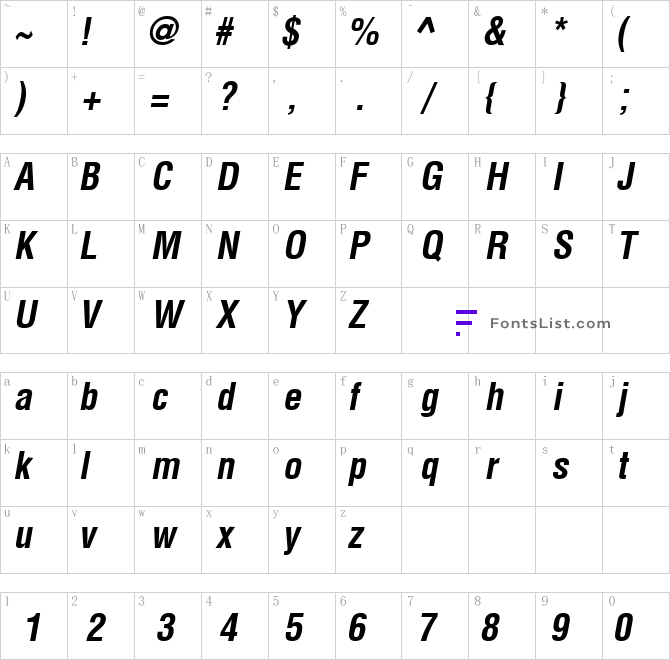
- Font Name:AGLettericaCondensed
AGLettericaCondensed-BoldOblique.ttf is a very beautiful artistic font, AGLettericaCondensed-BoldOblique.ttf is widely used in the design and printing of various books and pictures,AGLettericaCondensed-BoldOblique.ttf has a strong visual impact,AGLettericaCondensed-BoldOblique.ttf is a commonly used font in newspapers, magazines and books, and is used in posters, e-commerce Poster design, store design, logo design, font design and other fields.AGLettericaCondensed-BoldOblique.